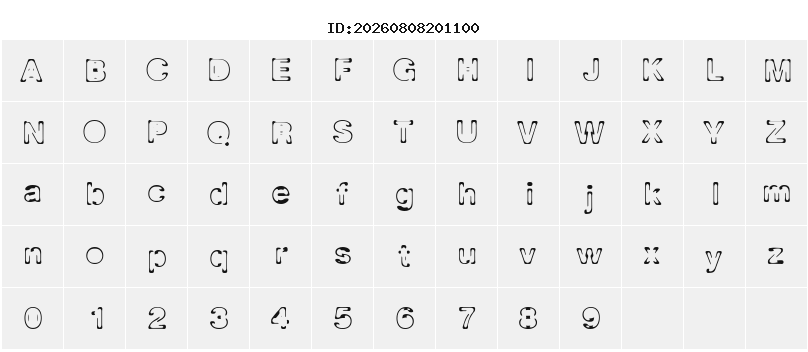
About Planet Orbit.ttf
Planet Orbit.ttf is a modern, elegant sans-serif font designed for ultimate readability and visual harmony. Perfect for branding, headlines, web design, and print materials.